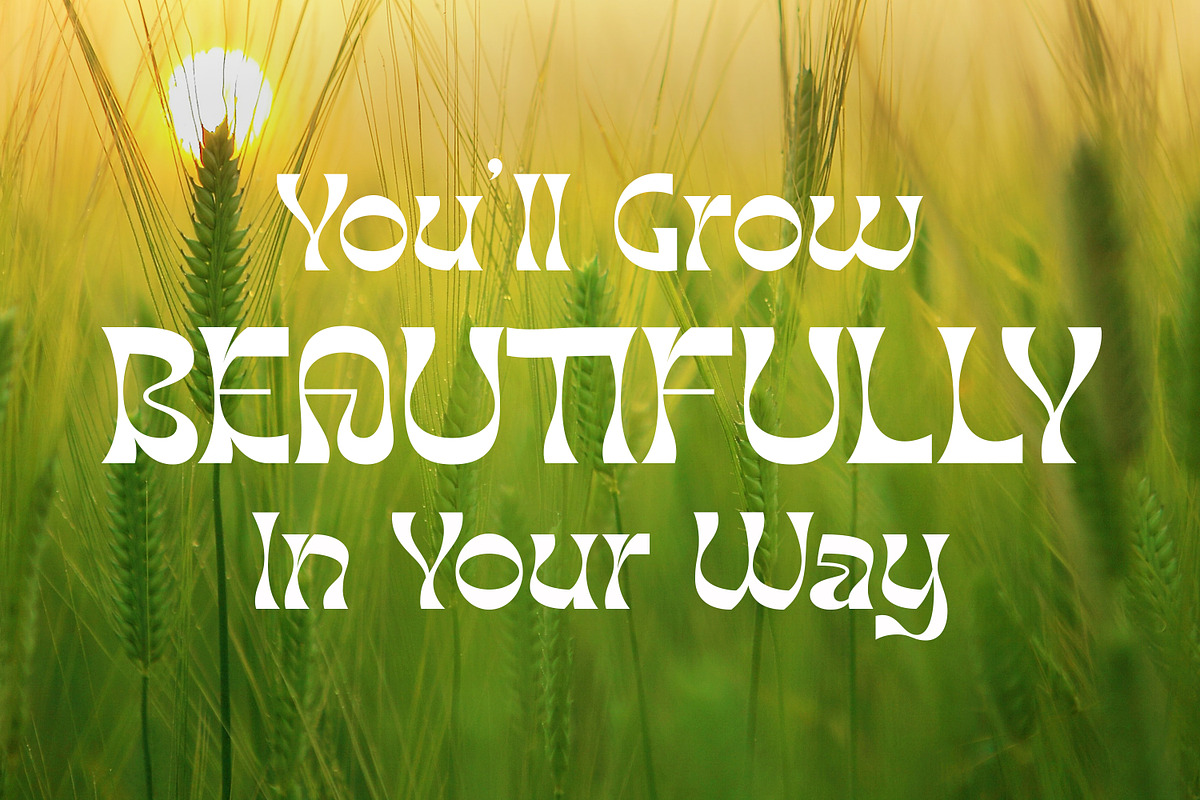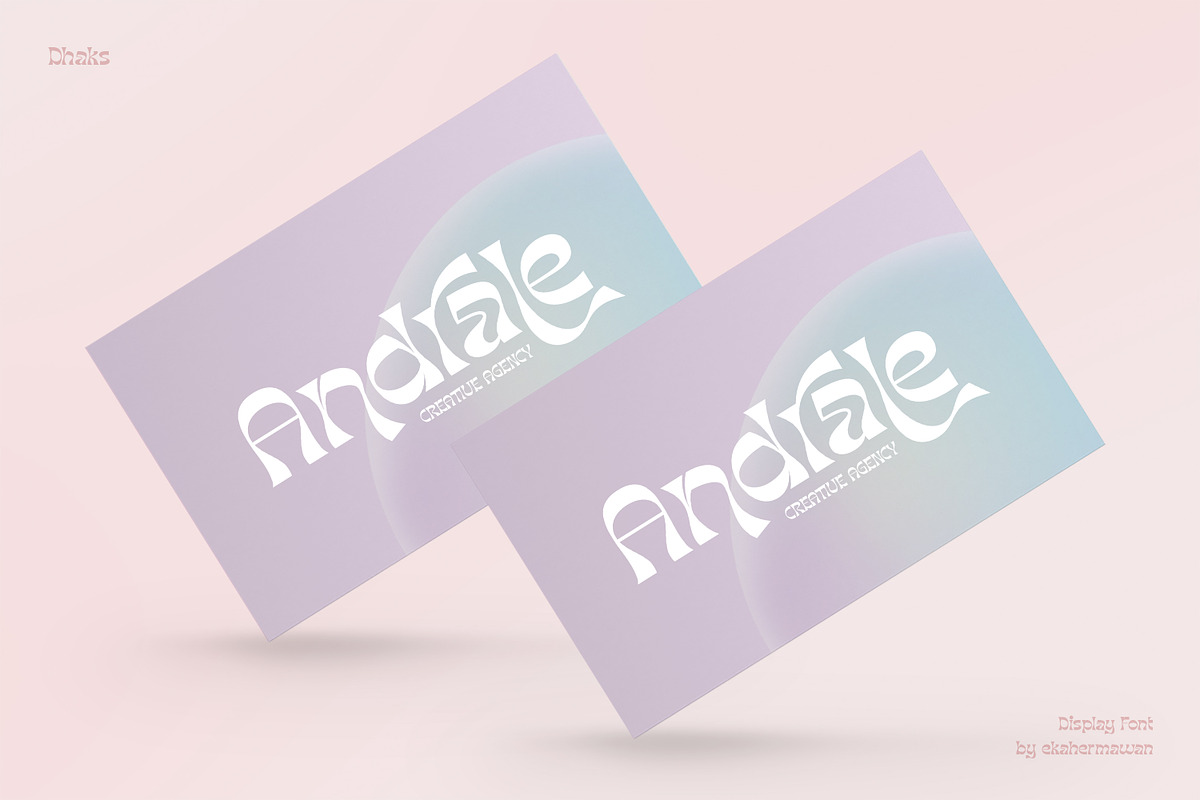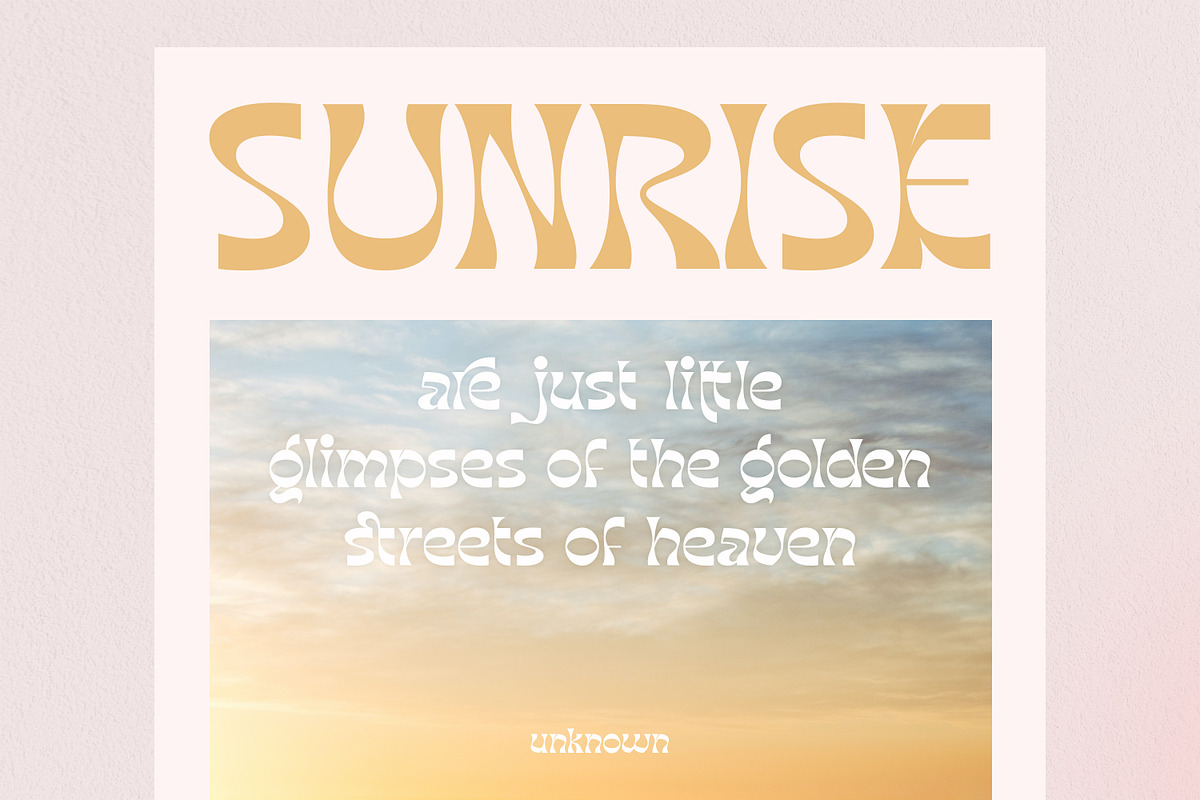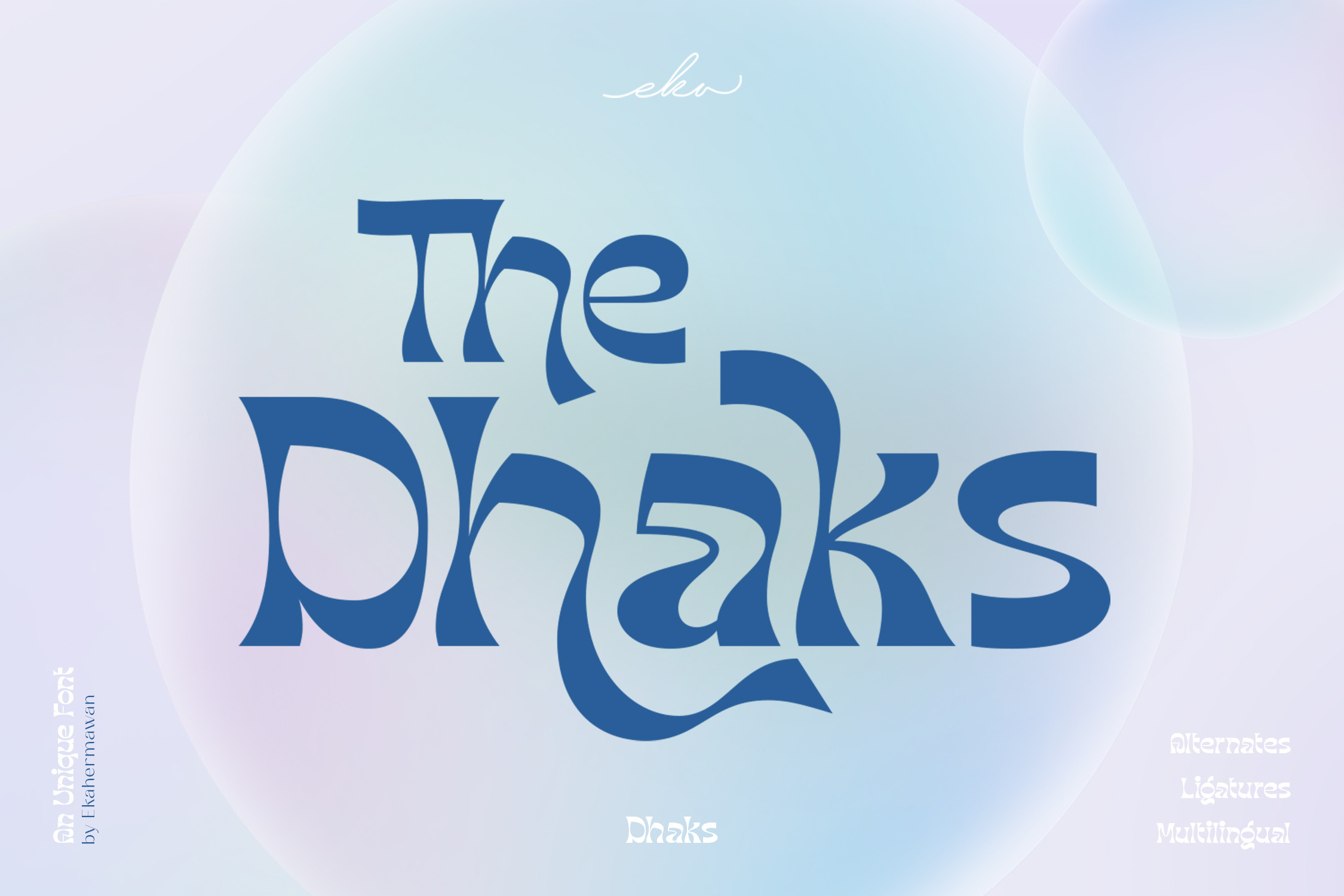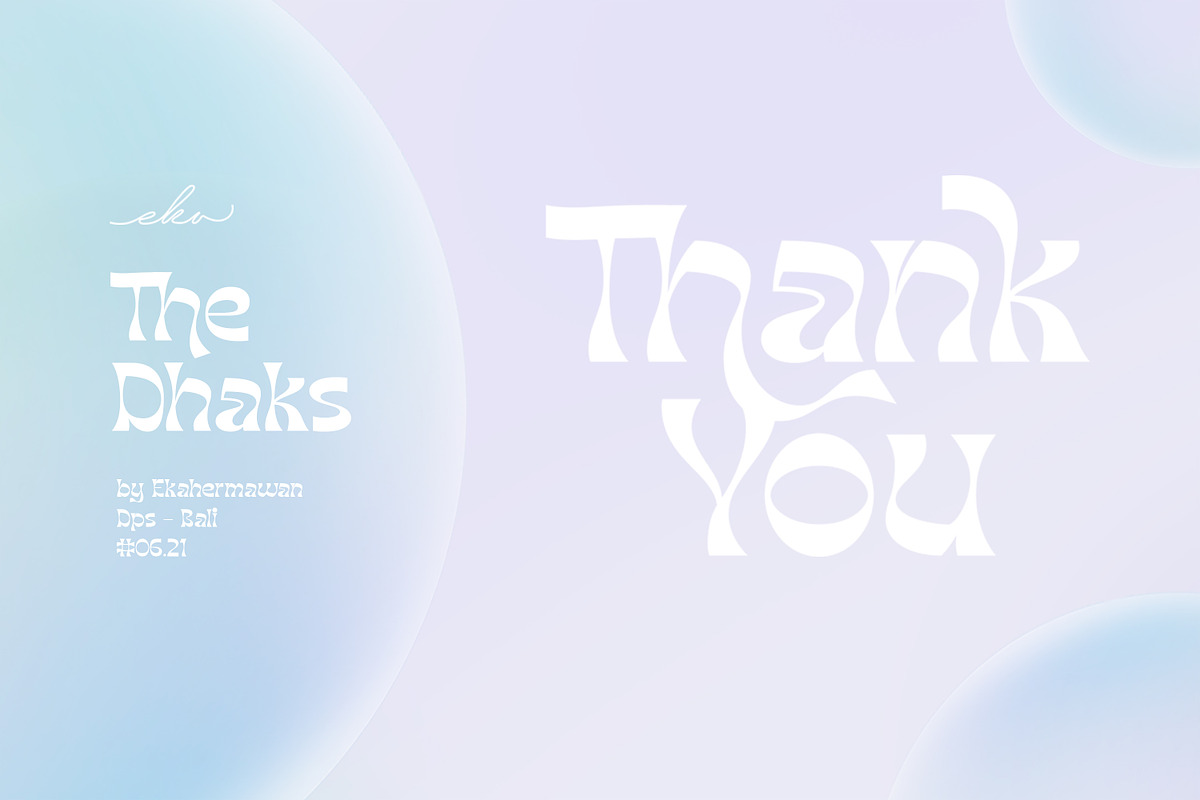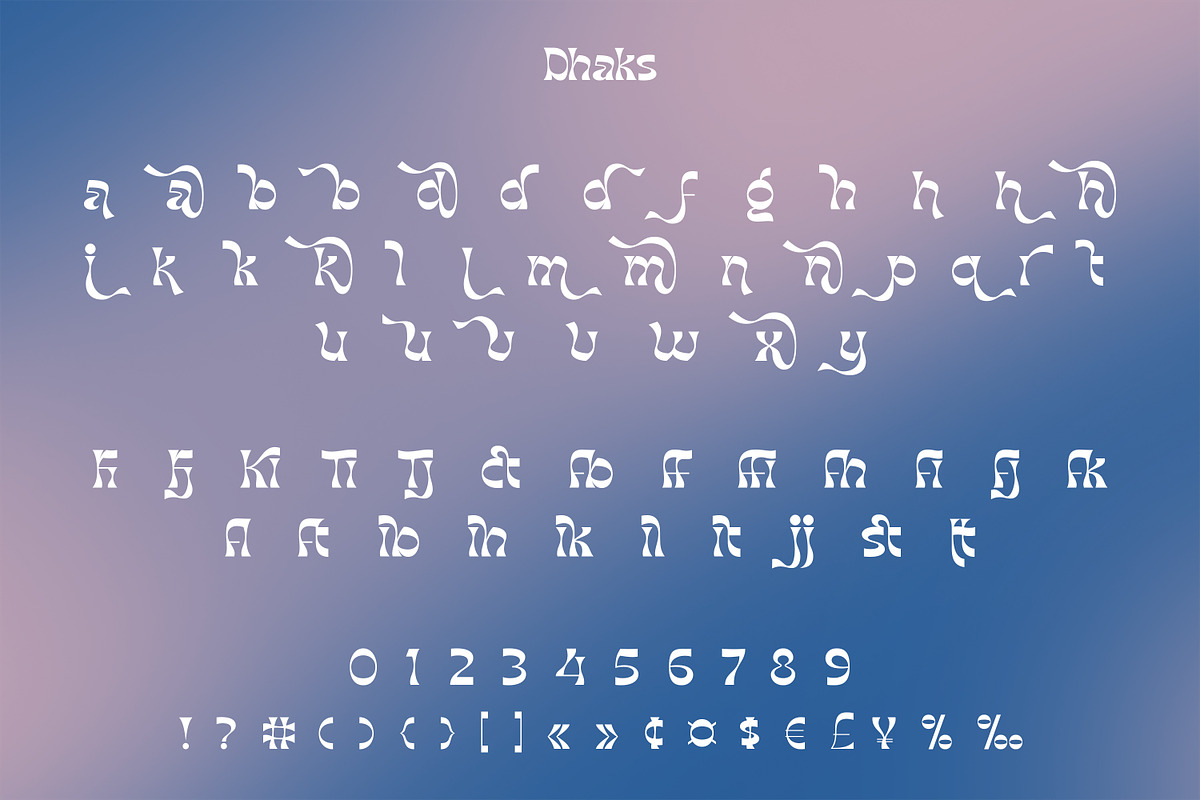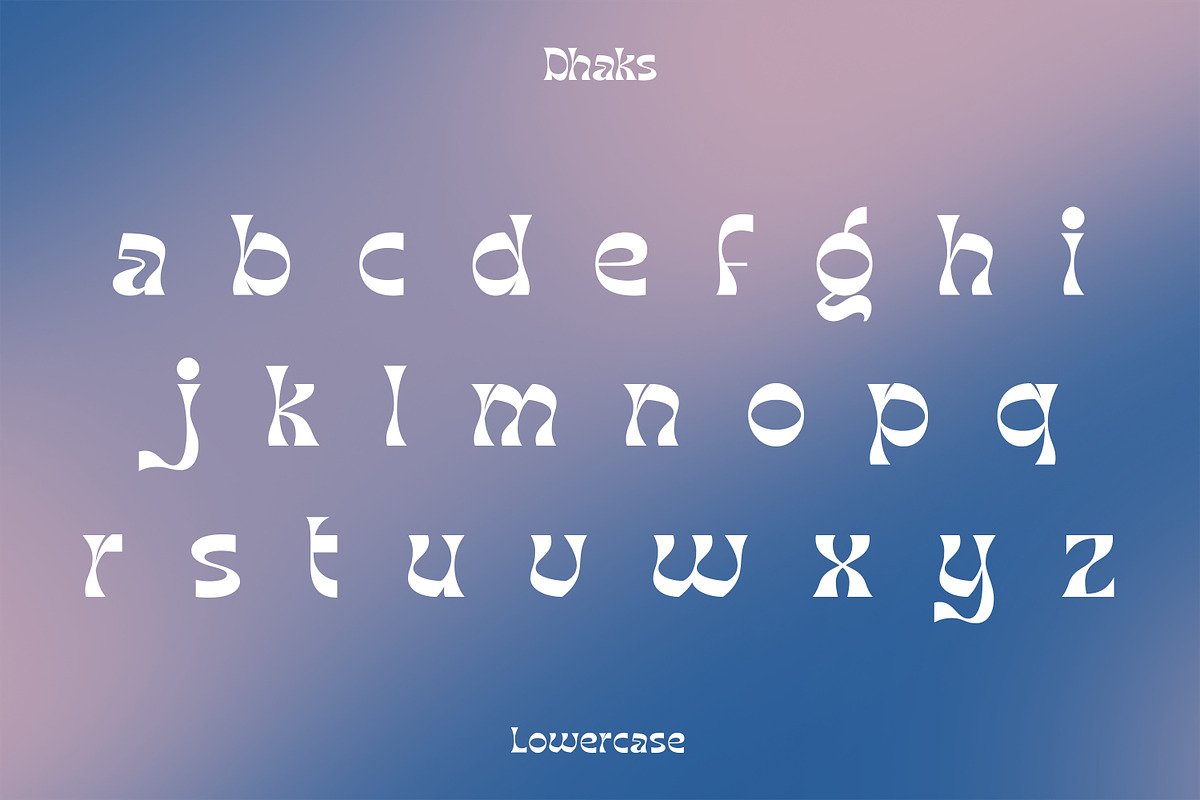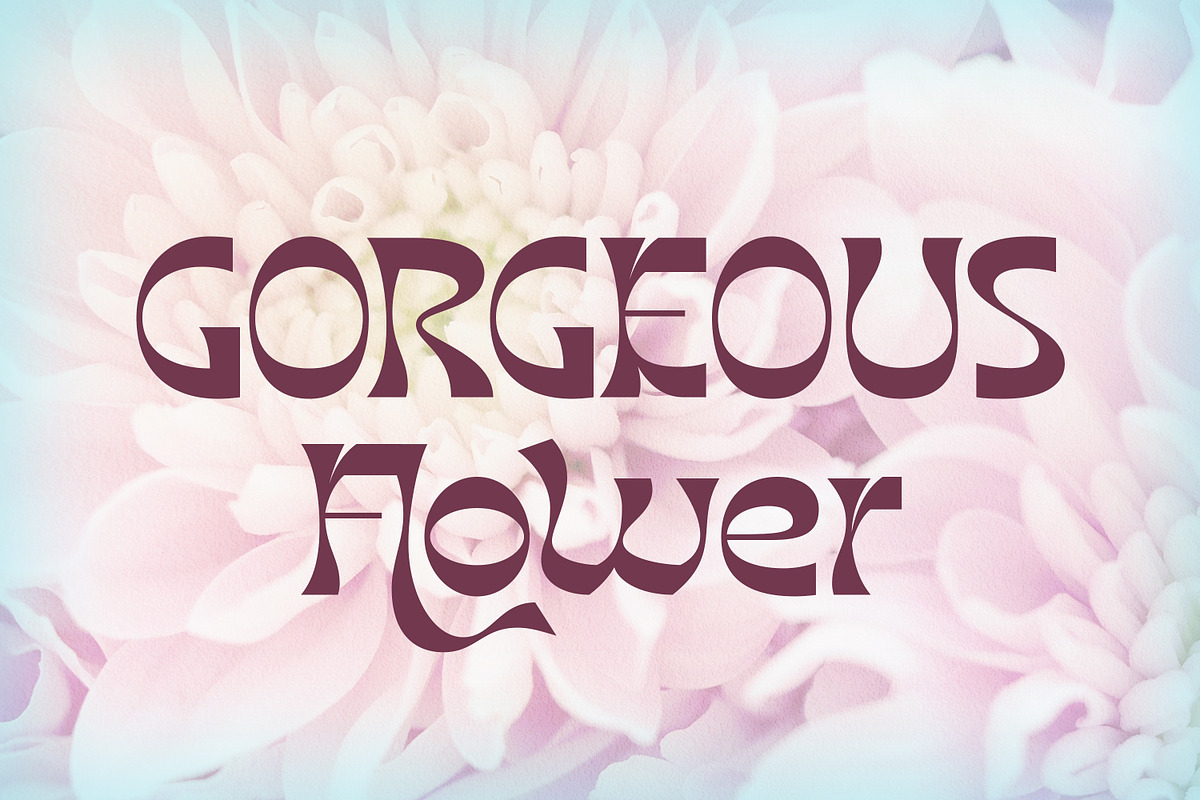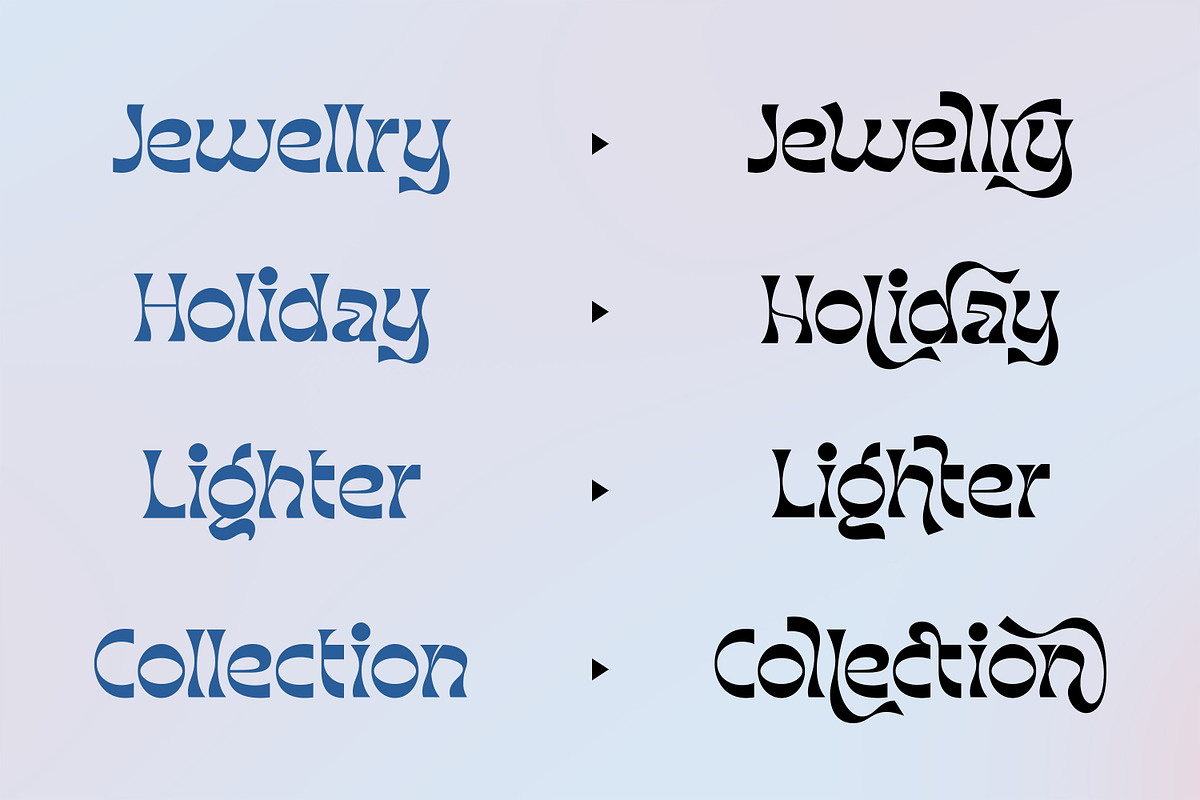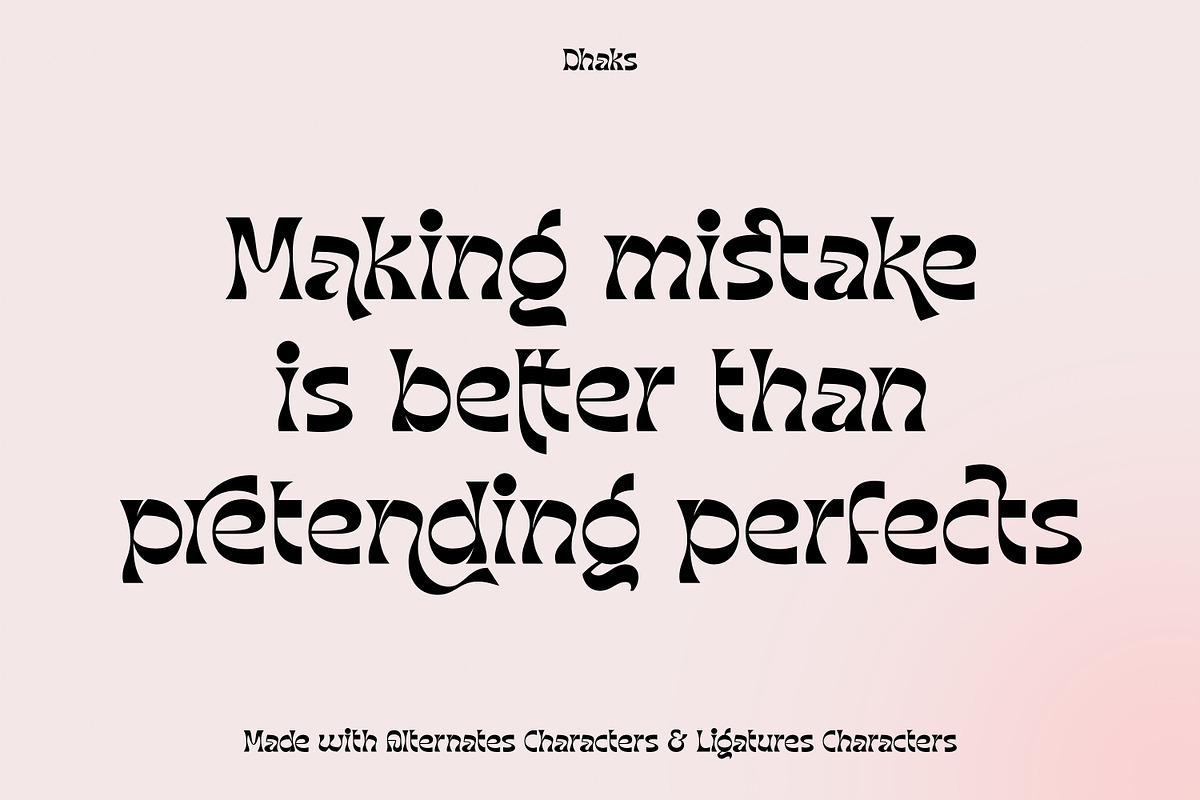
Dhaks - Unique Display Font
Introducing our unique display font that we call "Dhaks". Dhaks font has an unique shape on each character. Dhaks font comes with a bunch of alternates characters and ligatures characters that will give you a wide range to create a beautiful typographic design result for many different projects such as logo design, branding, poster, magazine, labels, merchandise, invitation, presentation, advertising, quotes and so much more!
- Playfull to use (with ligatures and alternates options)